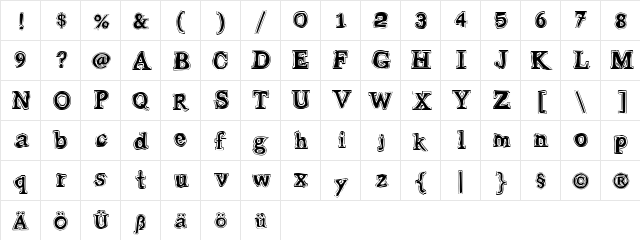
Gleam Comic Font Preview
Gleam Comic
Design Context for Gleam Typeface
Gleam trades formality for fun, with bouncy, characterful letterforms that bring warmth and energy to any project.
Font Pairing: Pairs well with a rounded or humanist sans for body copy, maintaining the friendly tone without relying on Gleam to carry extended reading.
Pro Tip: Use Gleam at larger display sizes where its expressive character can land. Pair with a clean, simple sans for body copy to maintain readability.